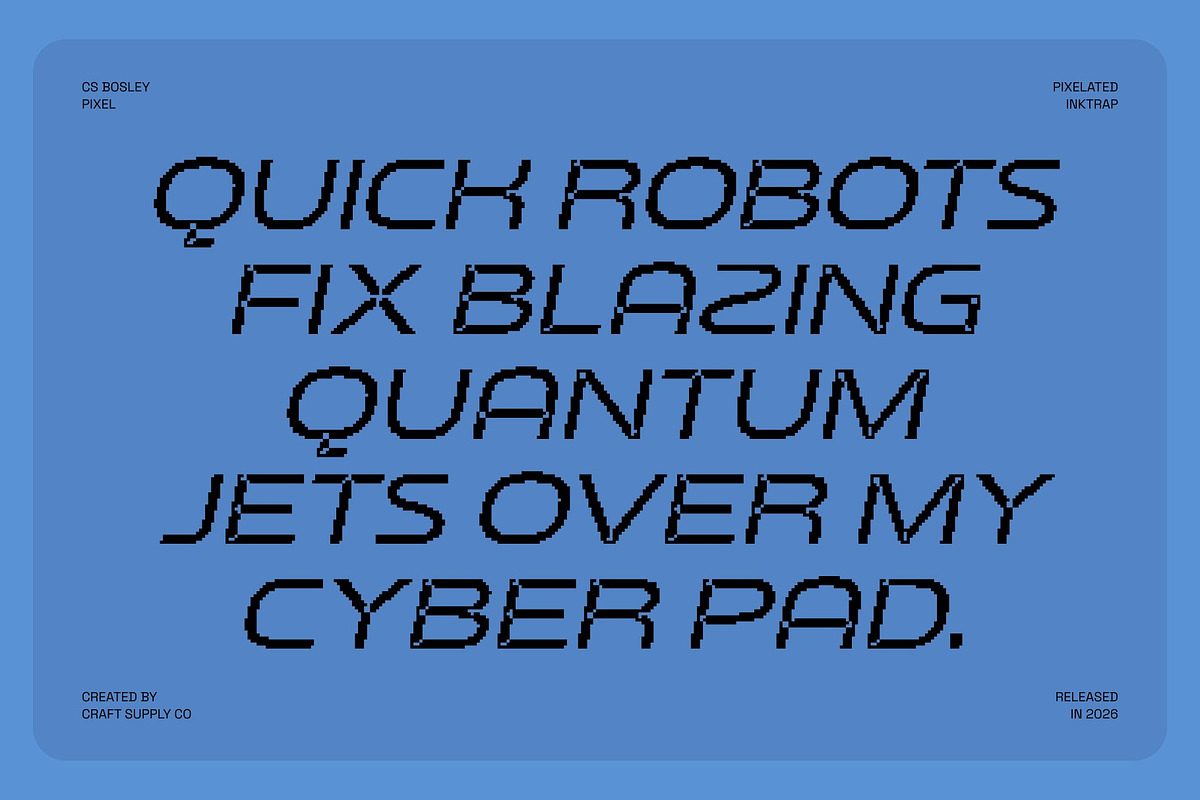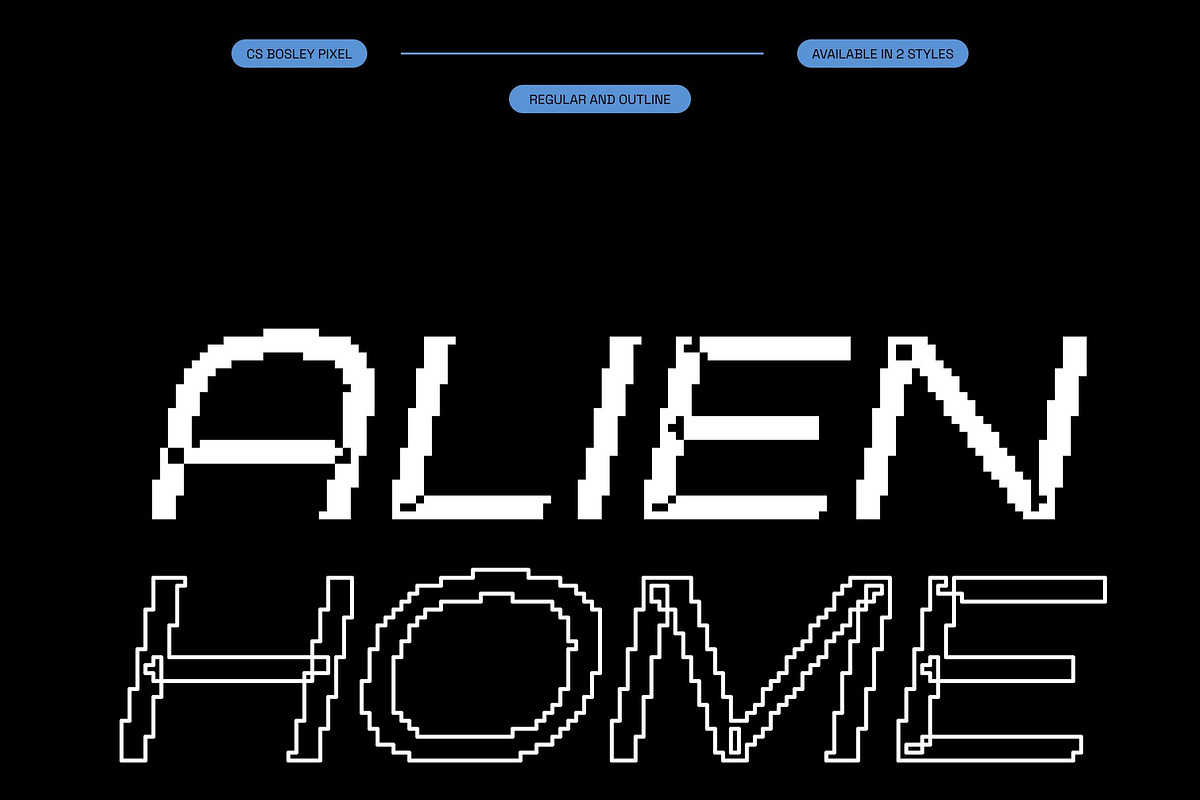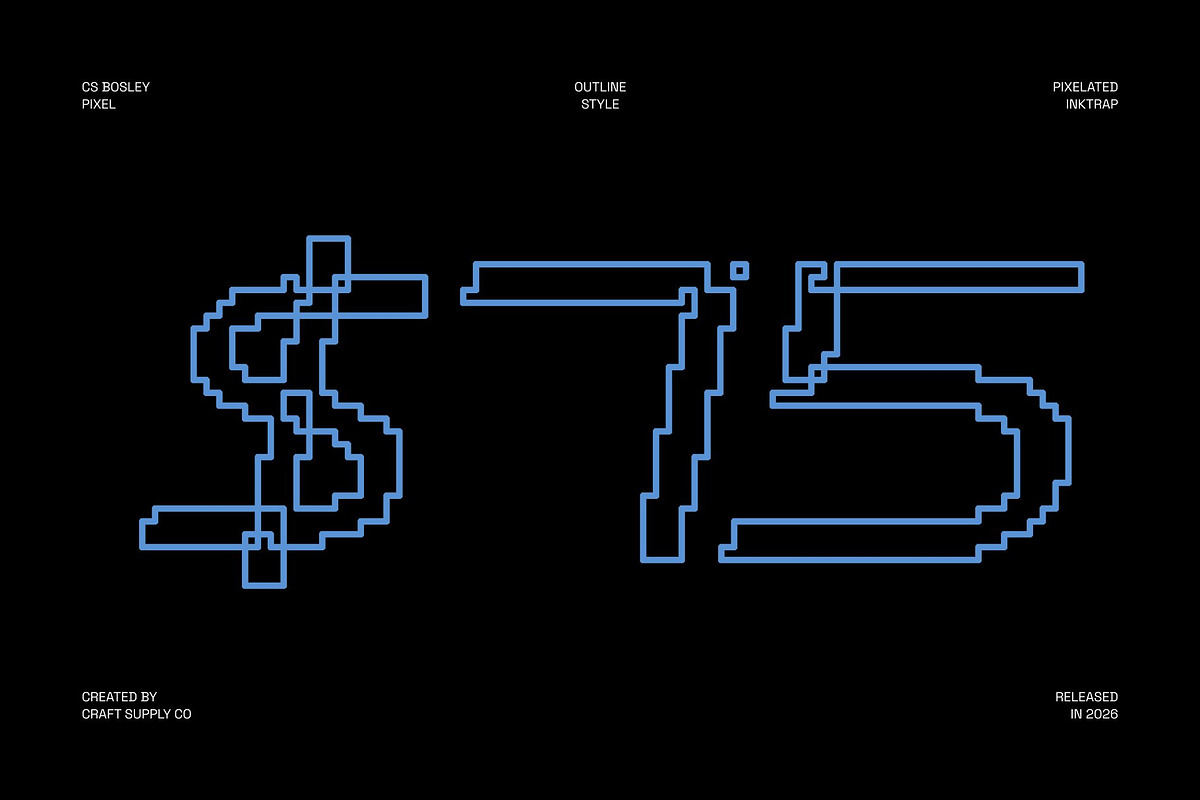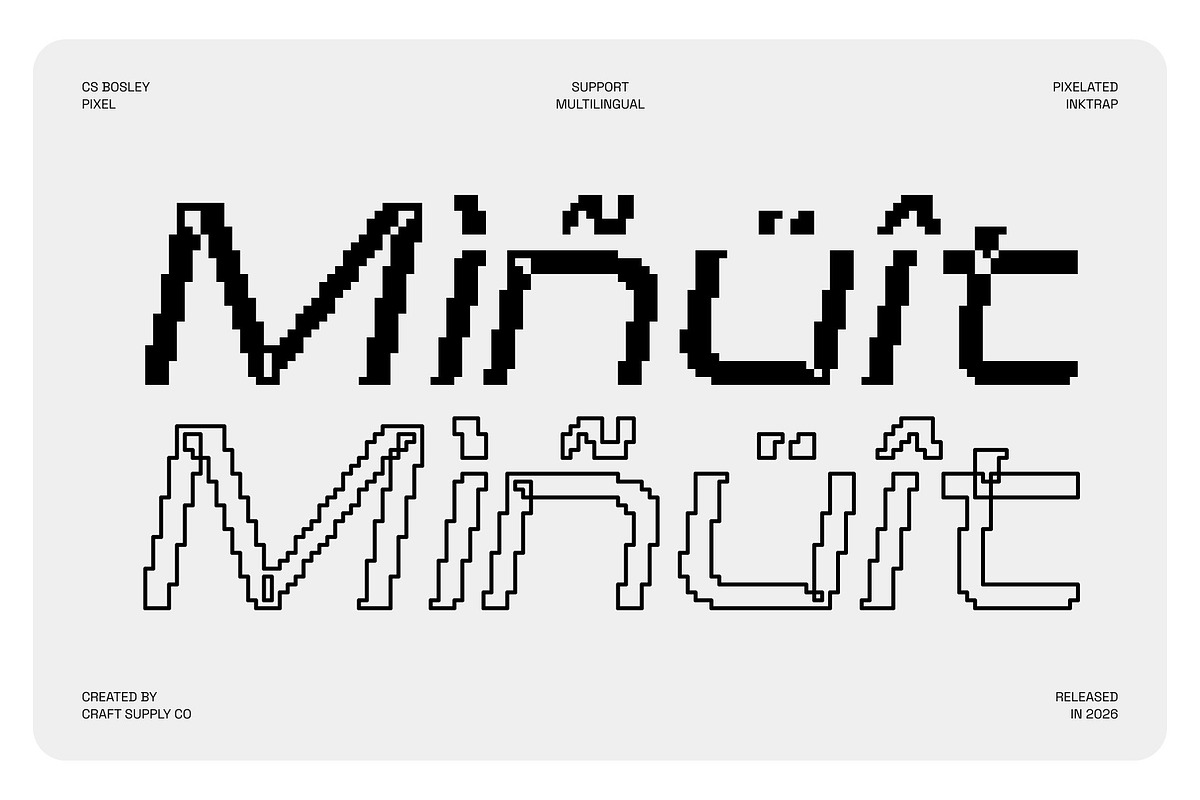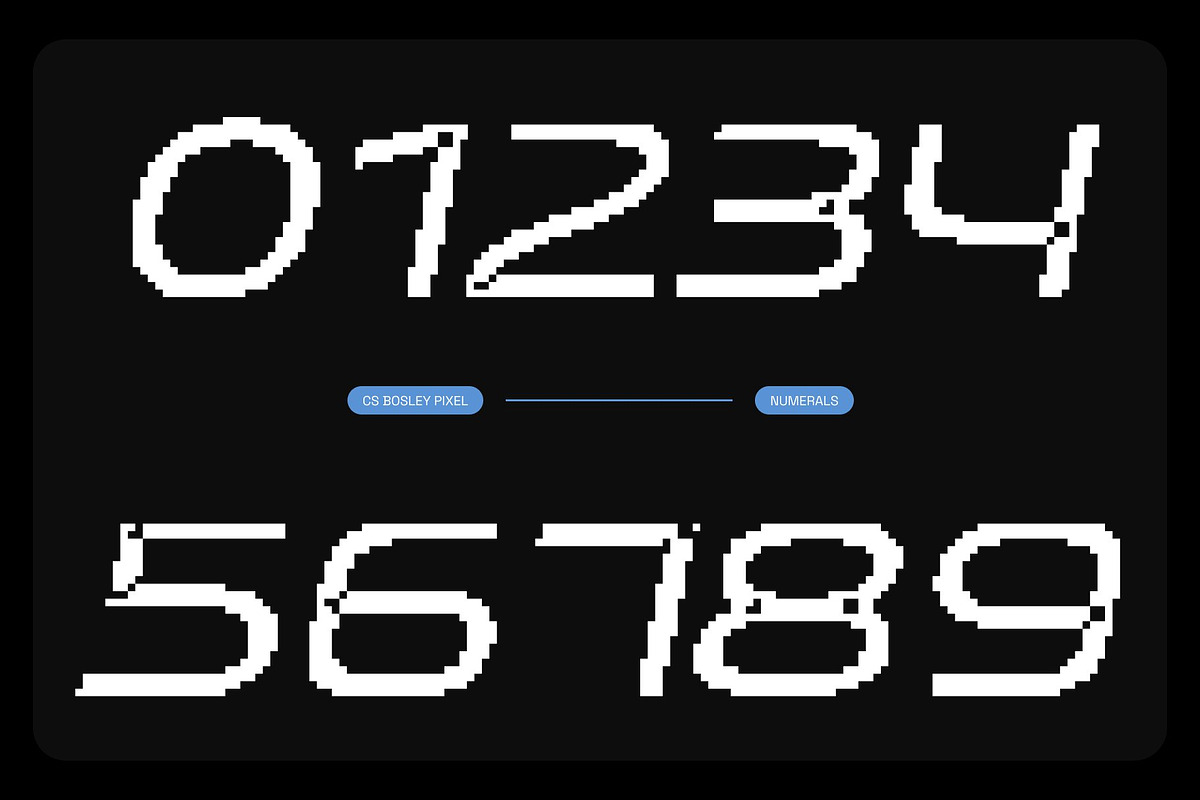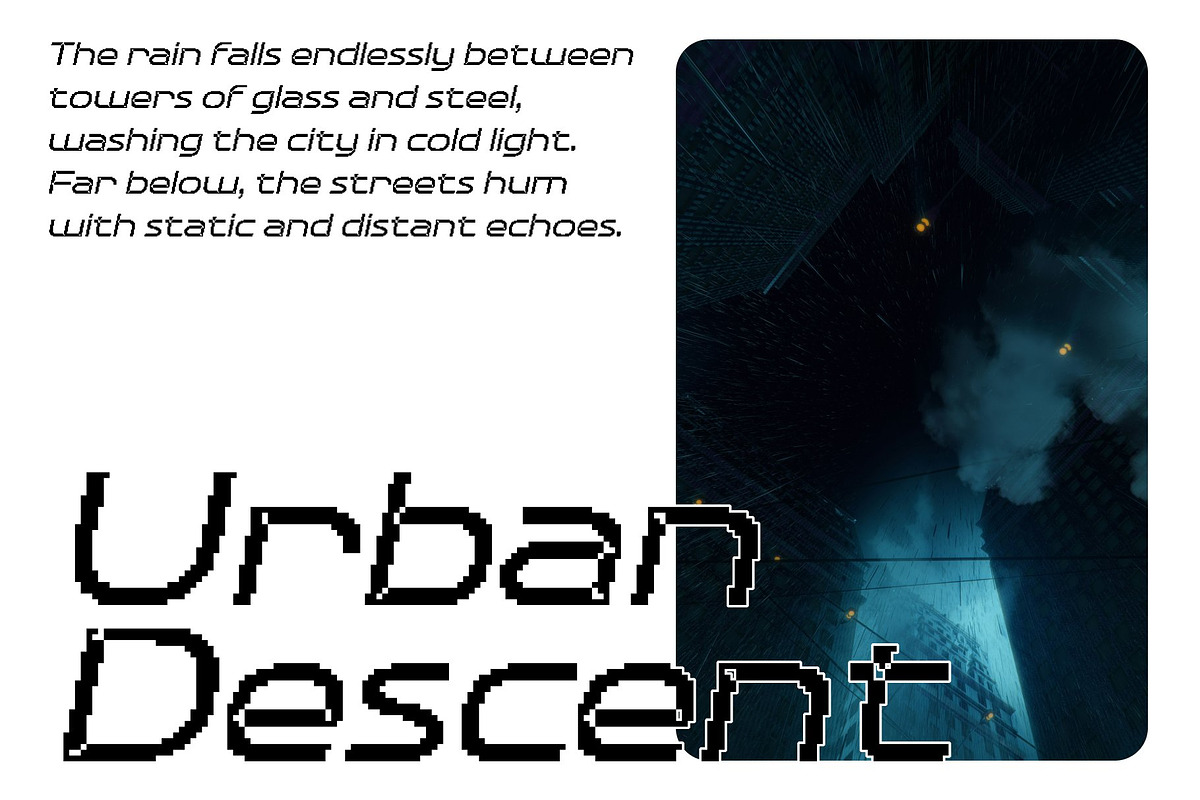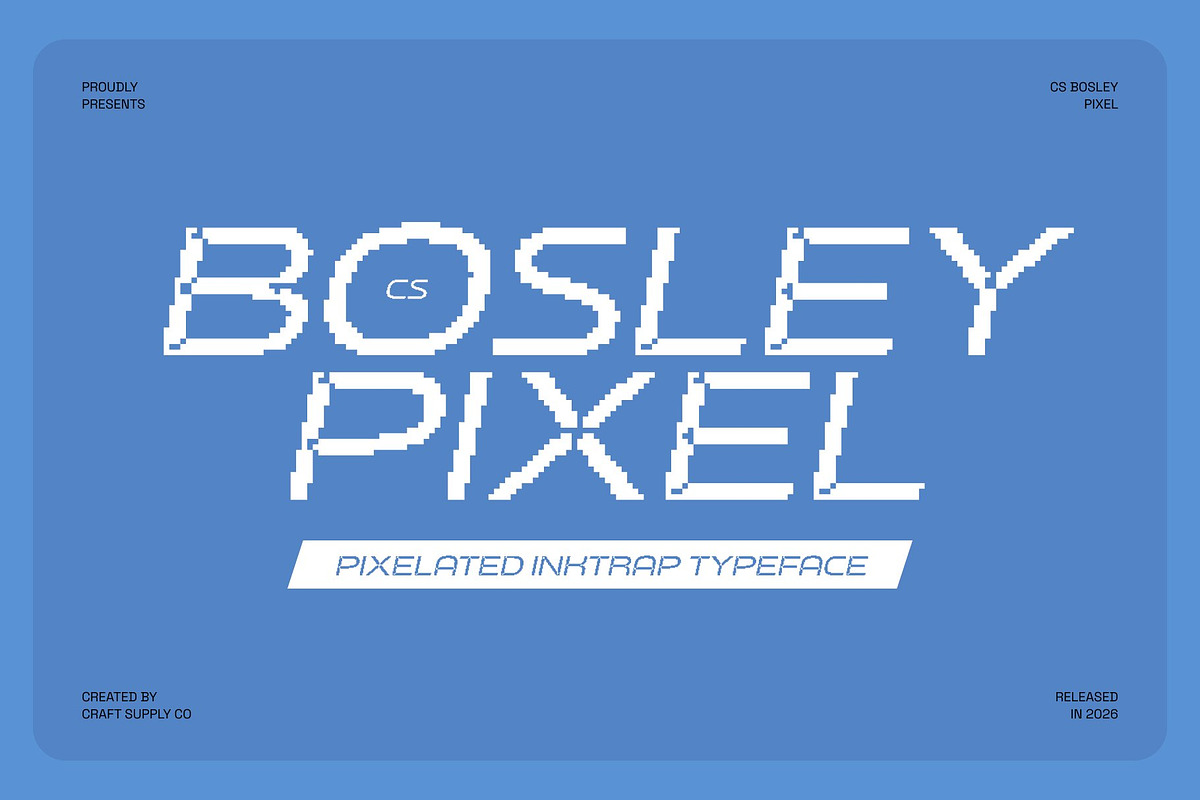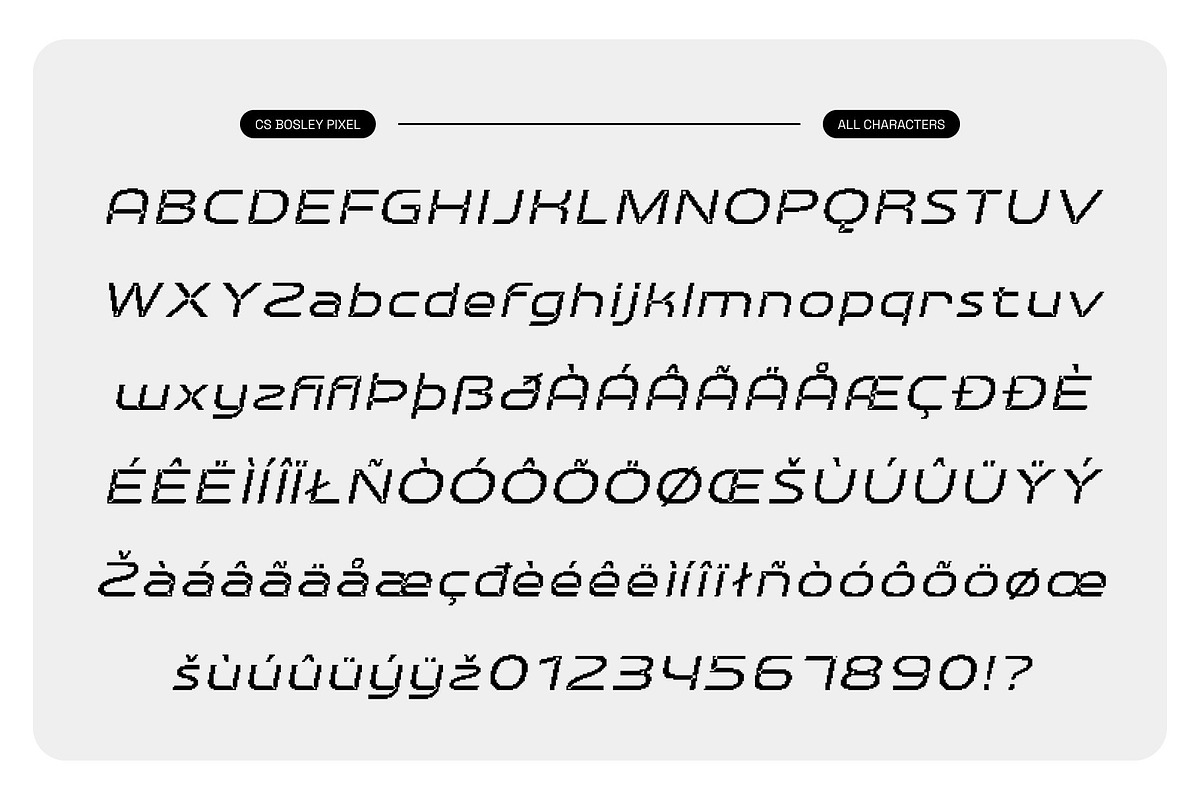
CS Bosley Pixel
CS Bosley Pixel – Inktrap Font: Where Modern Precision Meets Detail
Modern Sans Serif with Inktrap Character This is a modern sans-serif font designed with distinctive inktrap details and a subtle pixel-inspired edge. It blends clean, contemporary letterforms with technical precision, resulting in a typeface that feels sharp, intelligent, and visually refined.
Clean Structure with Contemporary Simplicity Built on a modern sans-serif foundation, this font delivers clarity and readability through balanced proportions and streamlined shapes. Its minimalist construction gives it a sleek and professional appearance, making it highly adaptable for modern visual communication.
Inktrap Details for Enhanced Definition The inktrap features accentuate corners, joins, and fine details within each letterform. These intentional cuts add character and depth while improving visual clarity, especially at small sizes or in digital environments. The pixel nuance reinforces a modern, tech-forward aesthetic without overpowering the design.
Ideal for Modern, Elegant, and Digital Design This font is perfect for branding, logos, UI design, editorial layouts, and contemporary marketing materials. Its combination of clean sans-serif structure, inktrap precision, and pixel-inspired detail makes it an excellent choice for projects that demand sophistication, clarity, and modern edge all in one refined typeface.